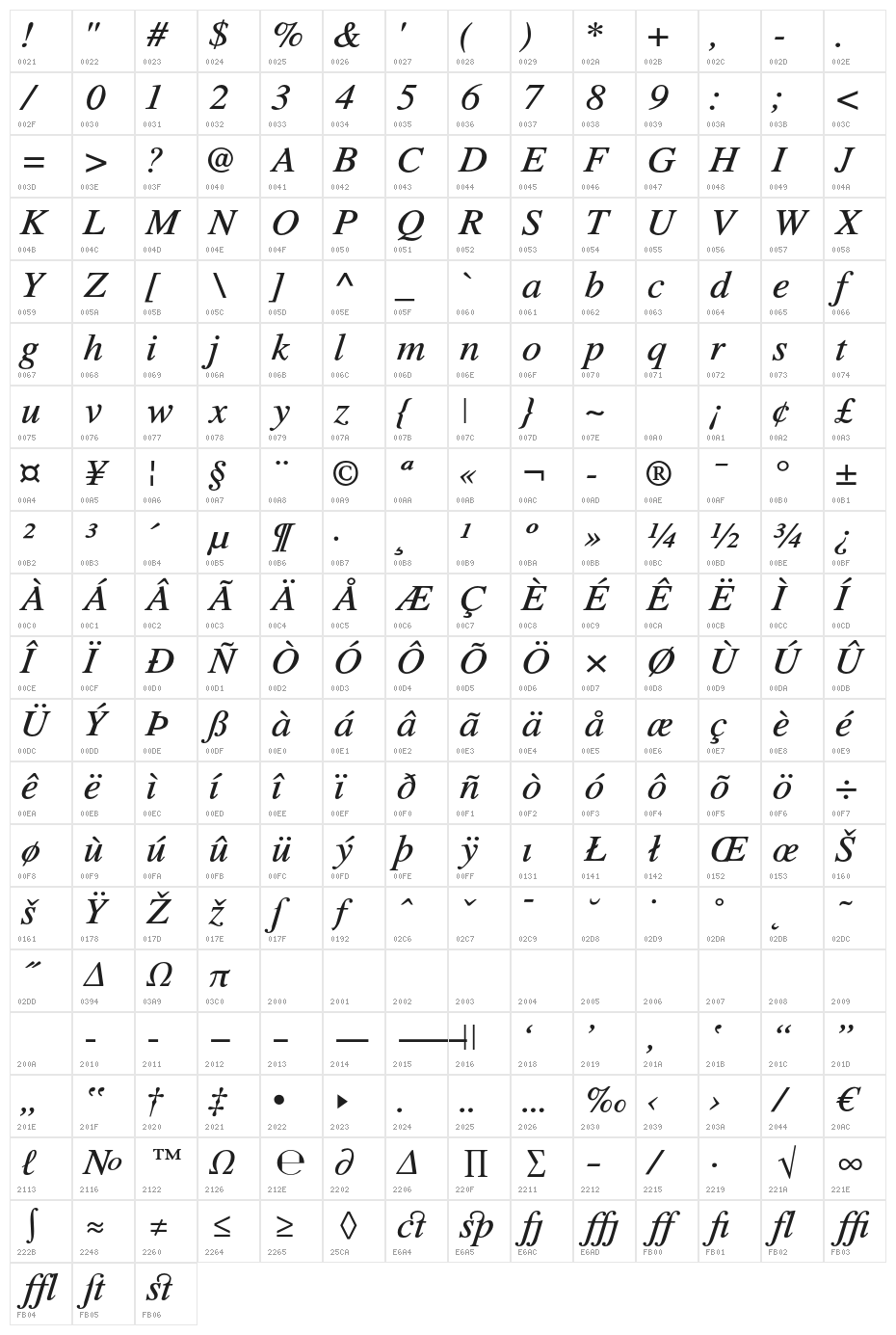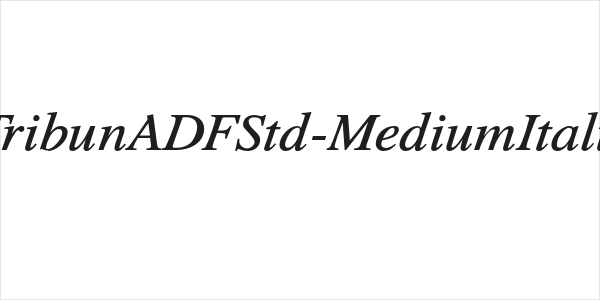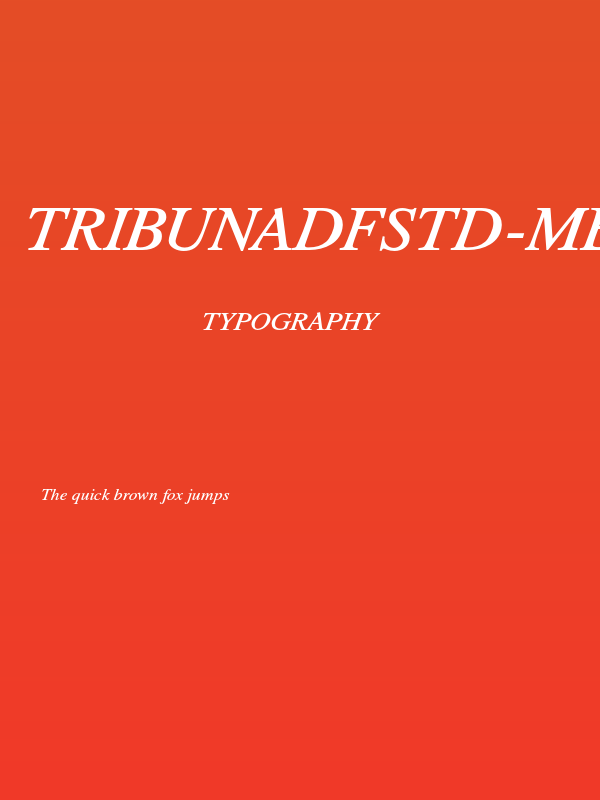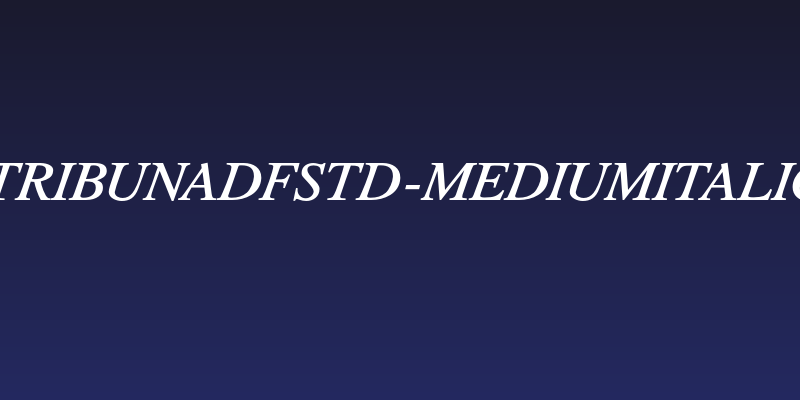
TribunADFStd-MediumItalic Font
TribunADFStd-MediumItalic Description
This font exhibits a classic serif style with elegant, flowing lines and a medium weight. The italicized form adds a sense of sophistication and movement, making it suitable for formal and traditional applications. The characters are well-proportioned, with a slight slant that enhances readability while maintaining a refined aesthetic. The numerals and special characters are designed to complement the overall style, ensuring consistency across different uses. The font's contrast in stroke thickness is moderate, providing a balanced appearance that is neither too bold nor too light.
| Proposed Projects | Ideal for use in formal invitations, editorial design, branding for luxury products, and elegant signage. |